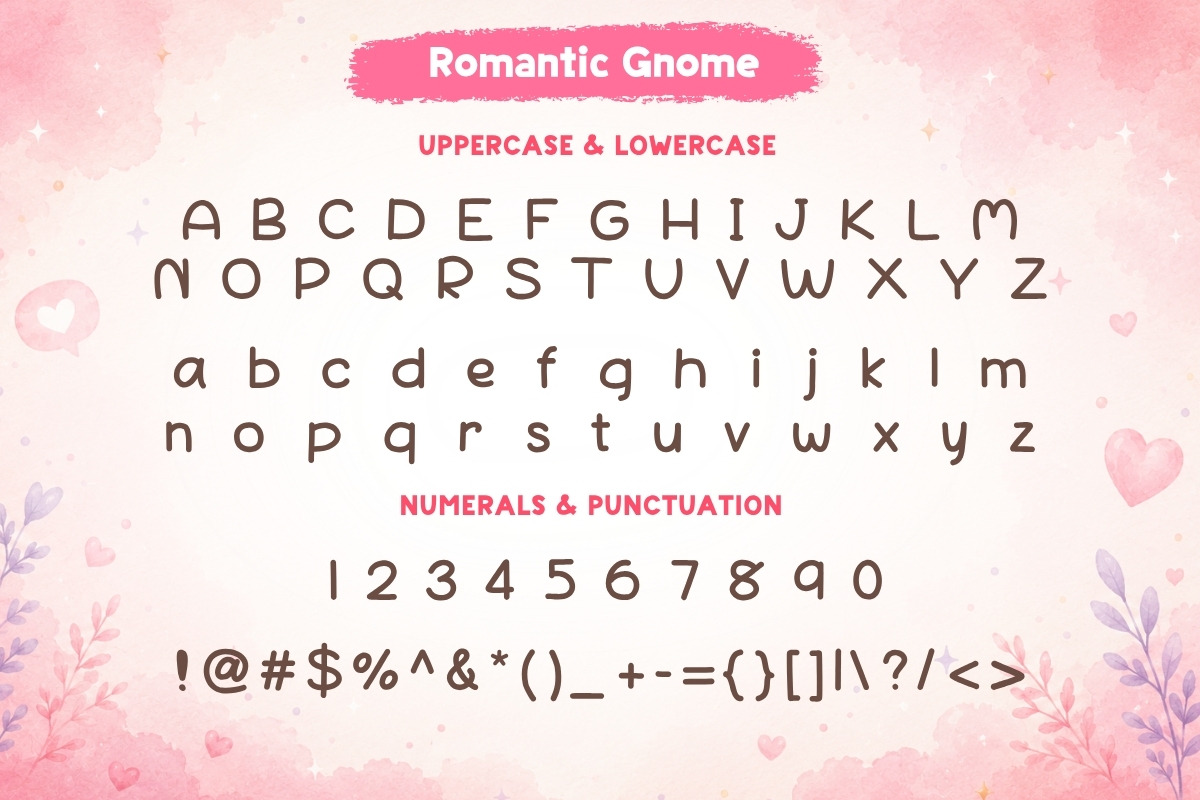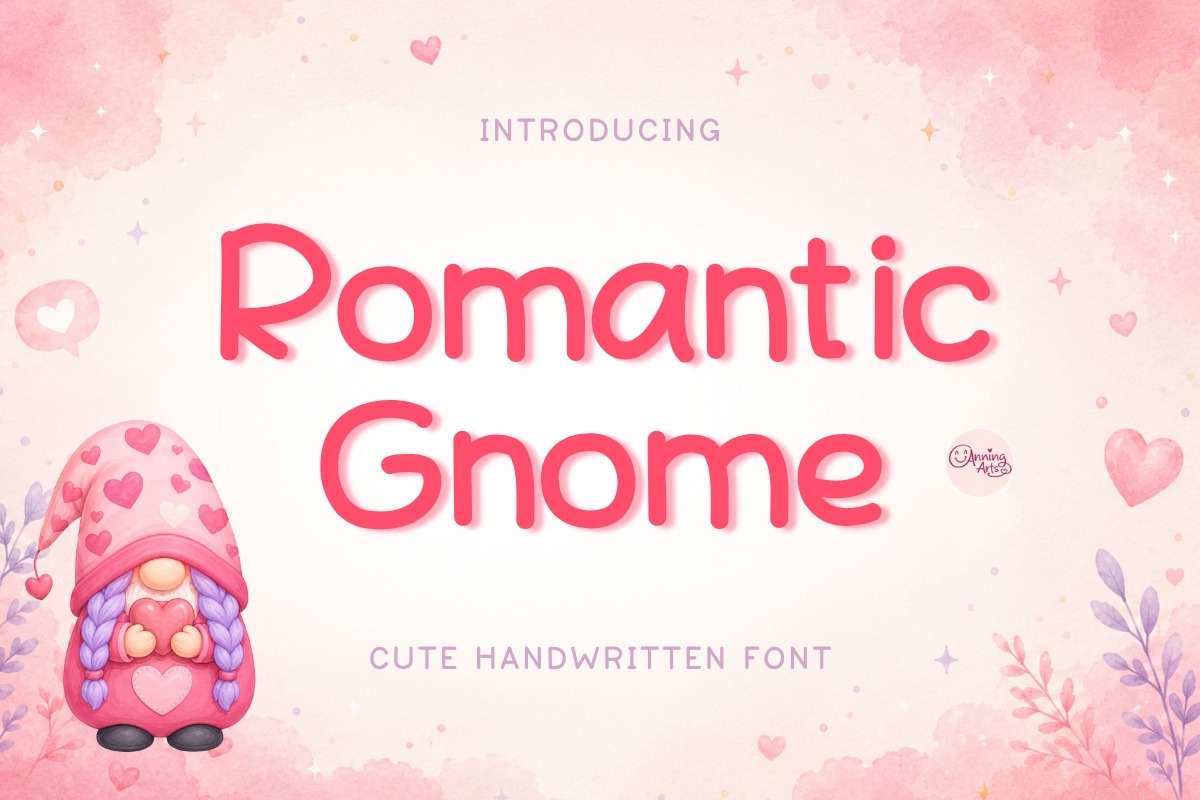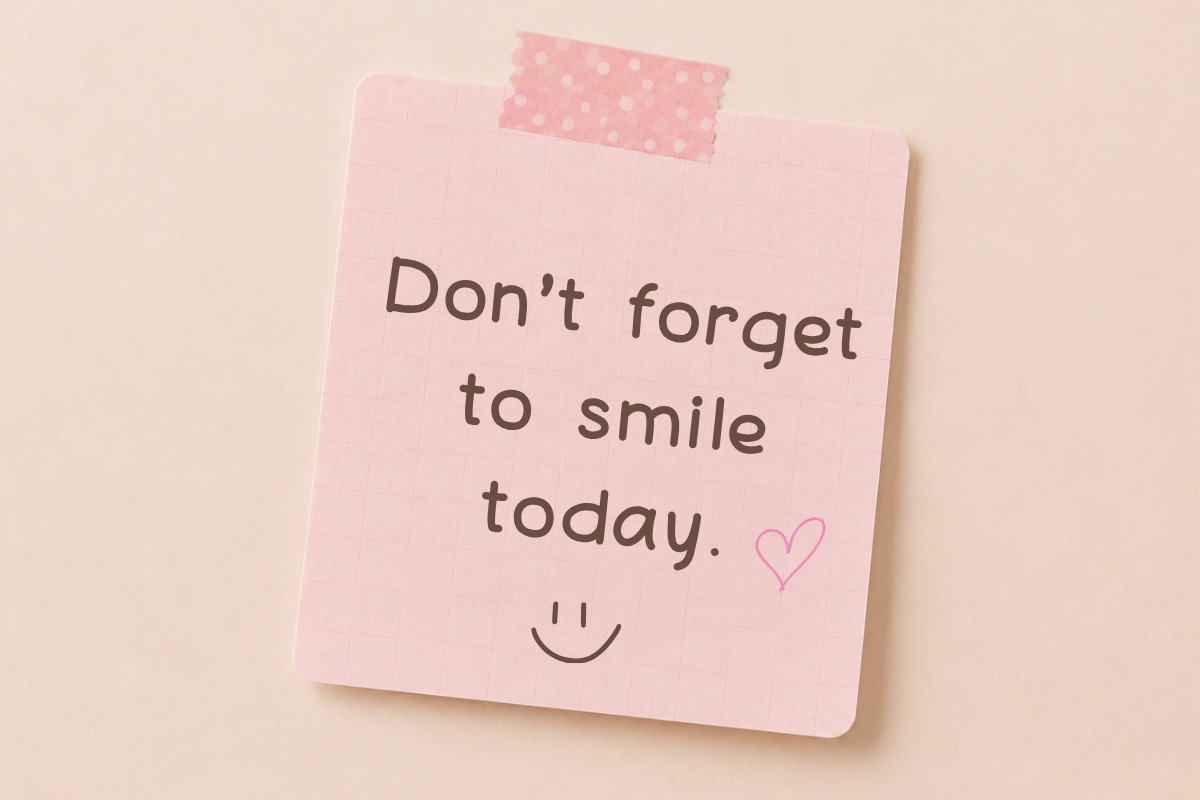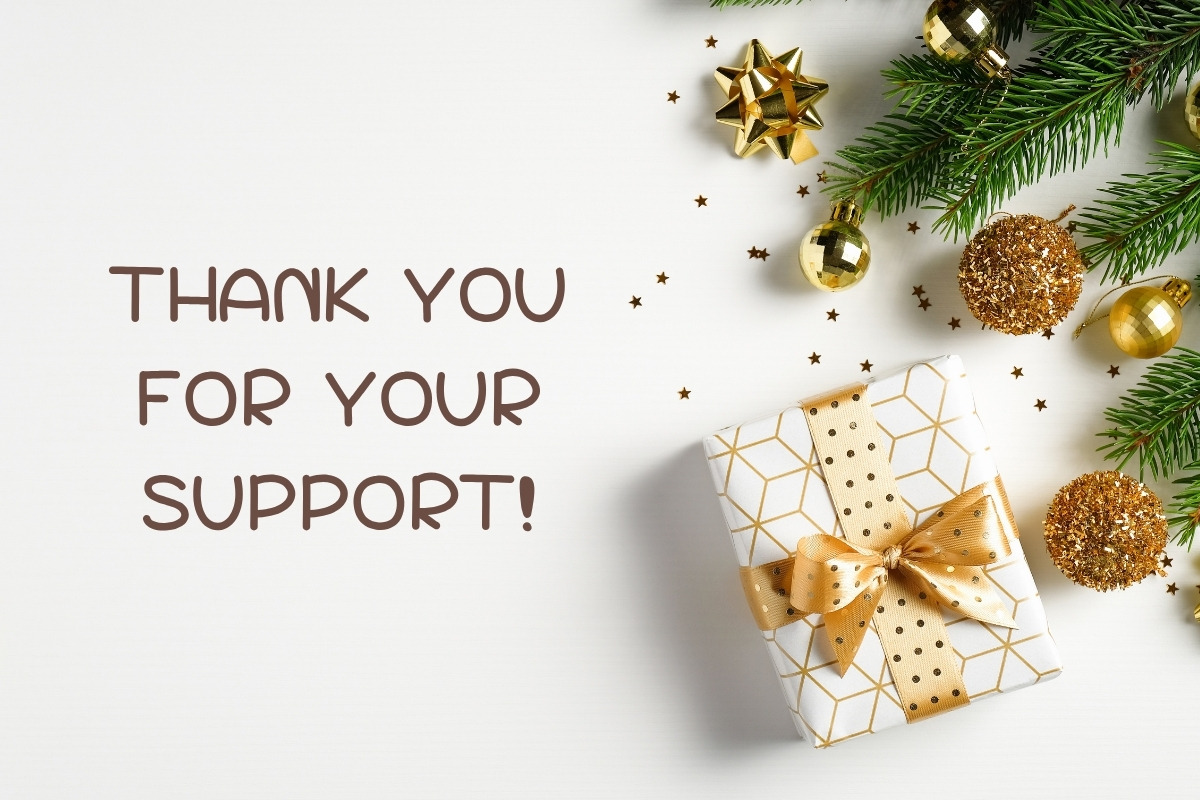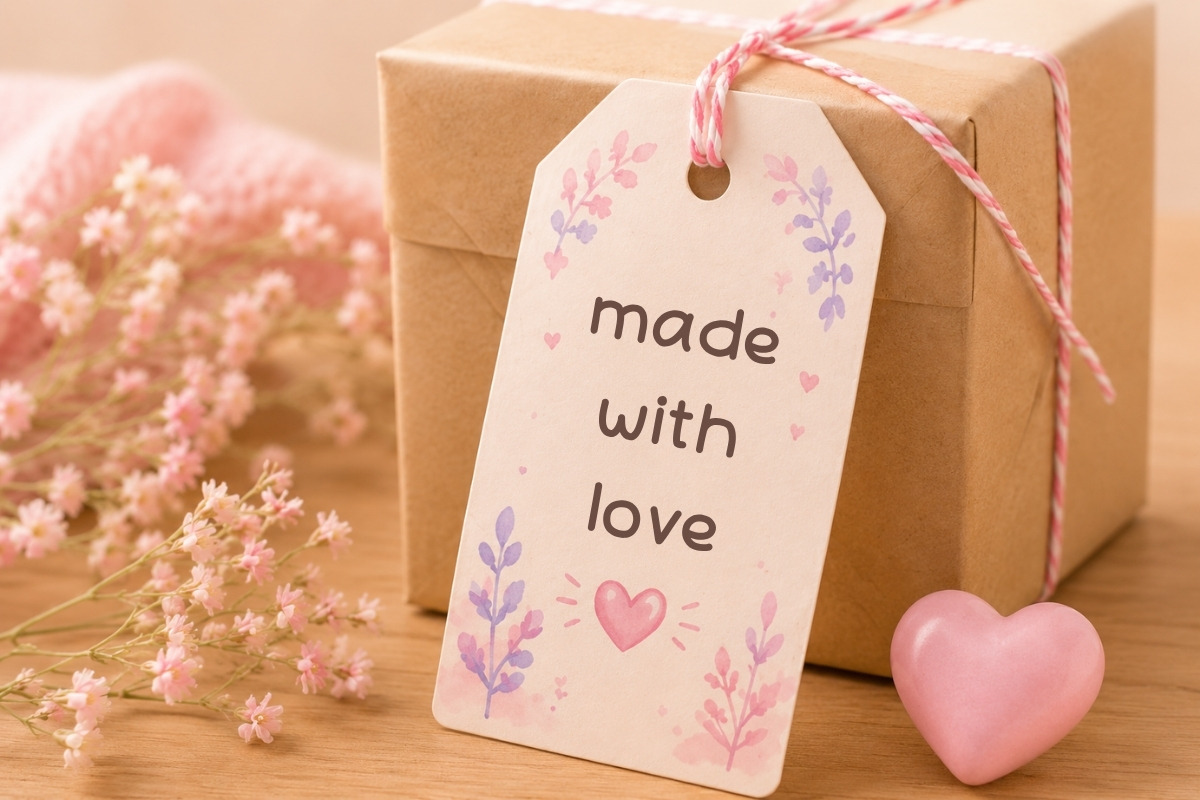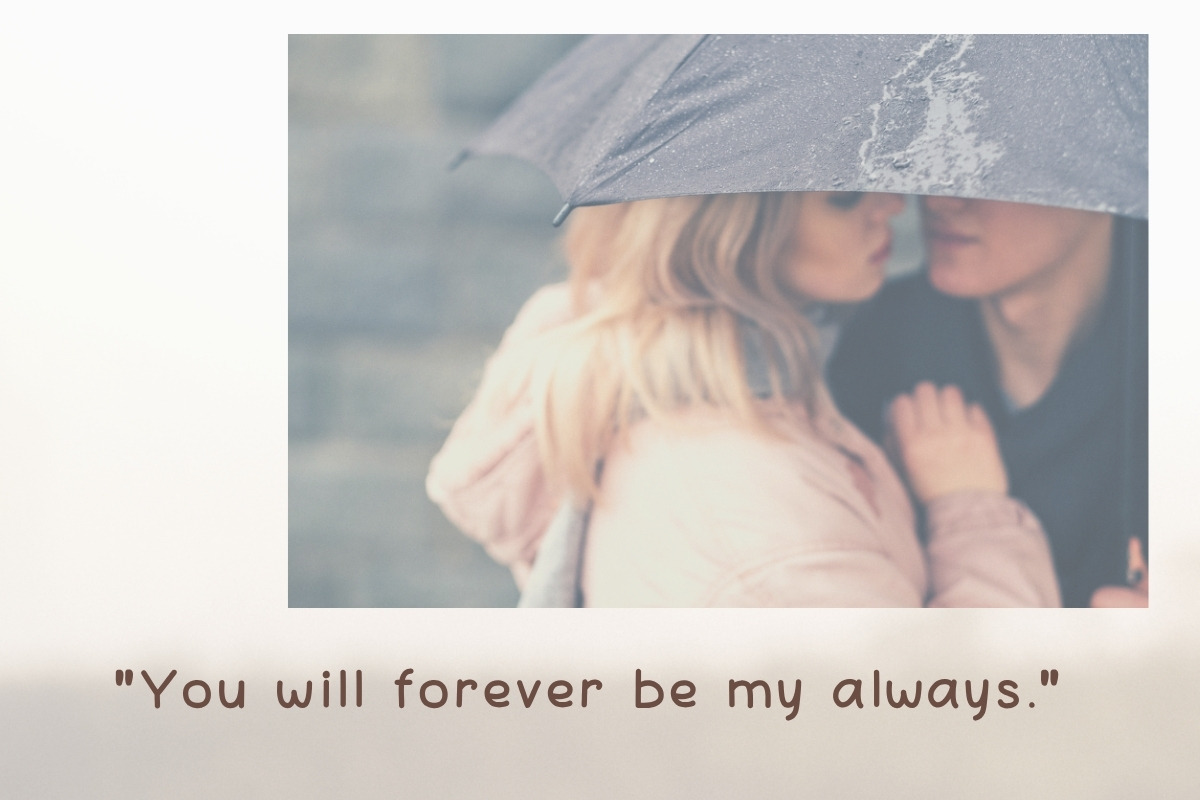
Romantic Gnome - Handwritten Font
Romantic Gnome is a cute handwritten font with soft rounded forms, smooth lines, and a warm romantic personality. Designed for friendly, heartfelt typography, this font adds a sweet, handmade touch to love-themed designs, gift packaging, stationery, and creative branding.
The font includes uppercase and lowercase letters, numerals, and punctuation, giving designers and makers flexibility for both print and digital projects. Its clean handwritten style is suitable for short quotes, product labels, social media graphics, cards, tags, and decorative display text.